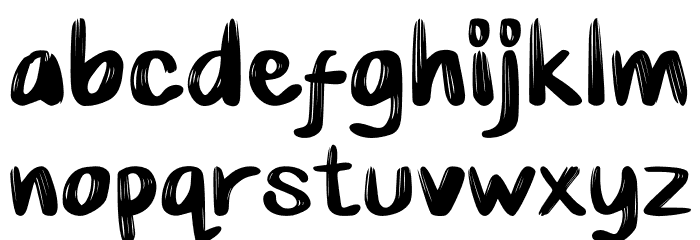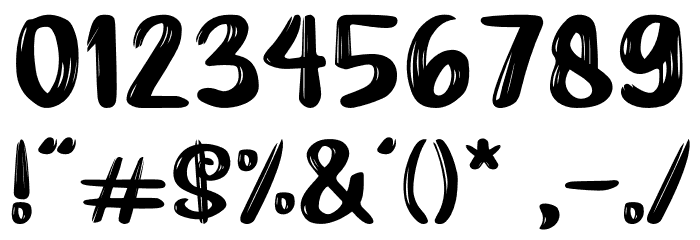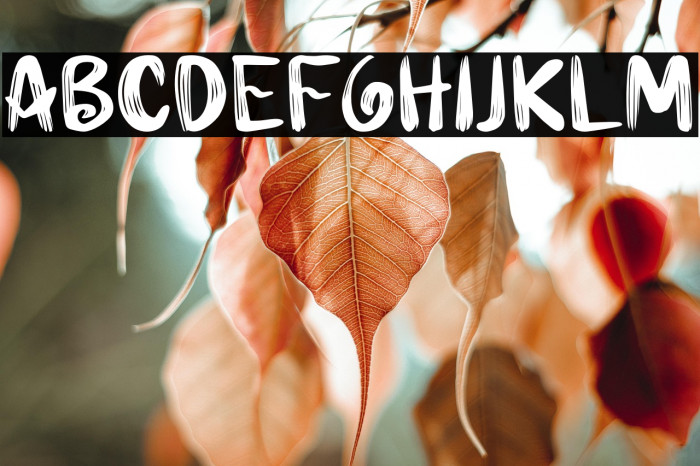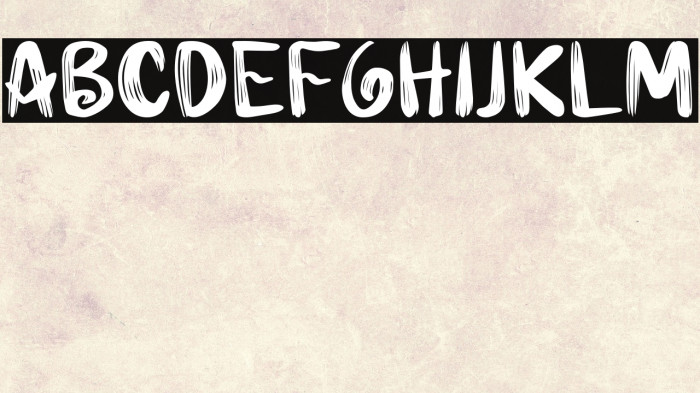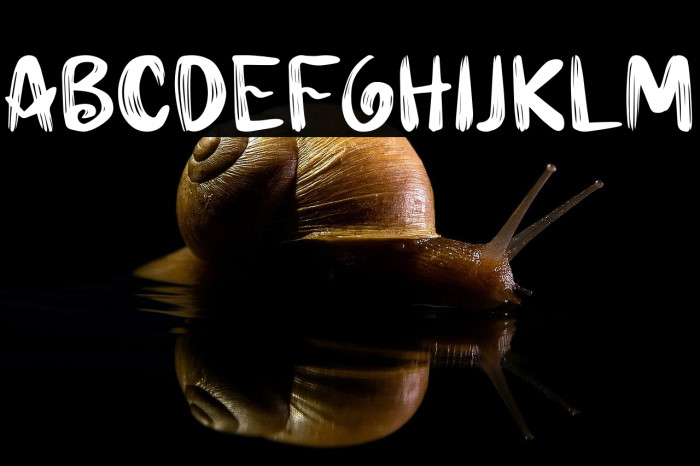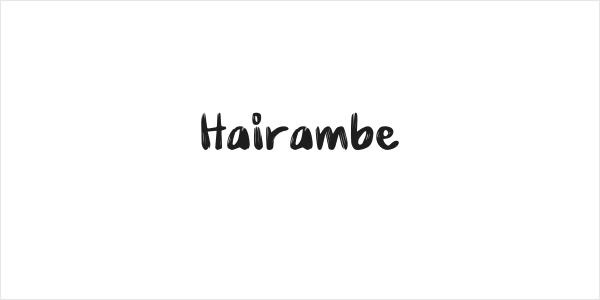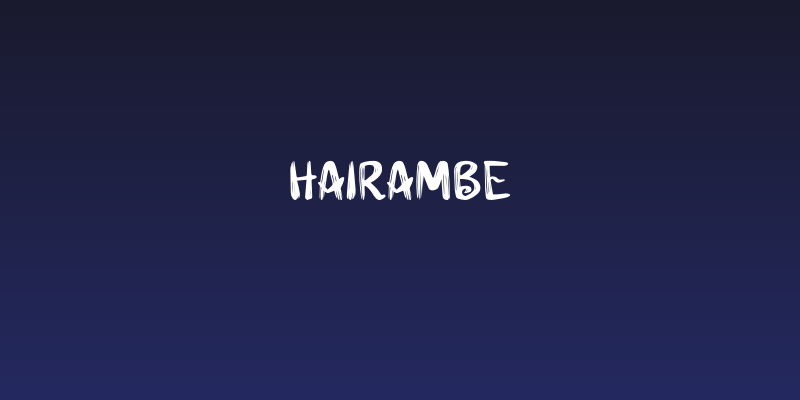
Hairambe Font
This font features a bold, brush-like style with dynamic strokes that give it a lively and energetic appearance. The characters are crafted with a hand-drawn aesthetic, showcasing irregular edges and varying stroke widths that add a sense of movement and personality. The uppercase letters are robust and commanding, while the lowercase letters maintain a playful yet cohesive look. Numbers and special characters follow the same expressive style, making the font versatile for creative projects. Its unique design is ideal for capturing attention and conveying a sense of fun and creativity.
A bold, brush-style font with dynamic, hand-drawn strokes.
- Font: Hairambe
- Proposed Projects: Ideal for posters, branding, social media graphics, and creative advertising.